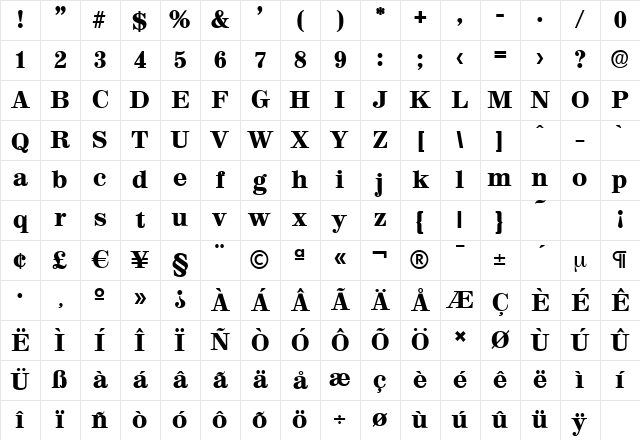
ValenciaSerial-Heavy Regular
Design Context for ValenciaSerial-Heavy
ValenciaSerial-Heavy is a composed and adaptable typeface that performs quietly and consistently across a wide range of design contexts.
Pro Tip: Use ValenciaSerial-Heavy in both headline and body roles to test its range before committing to a single application.